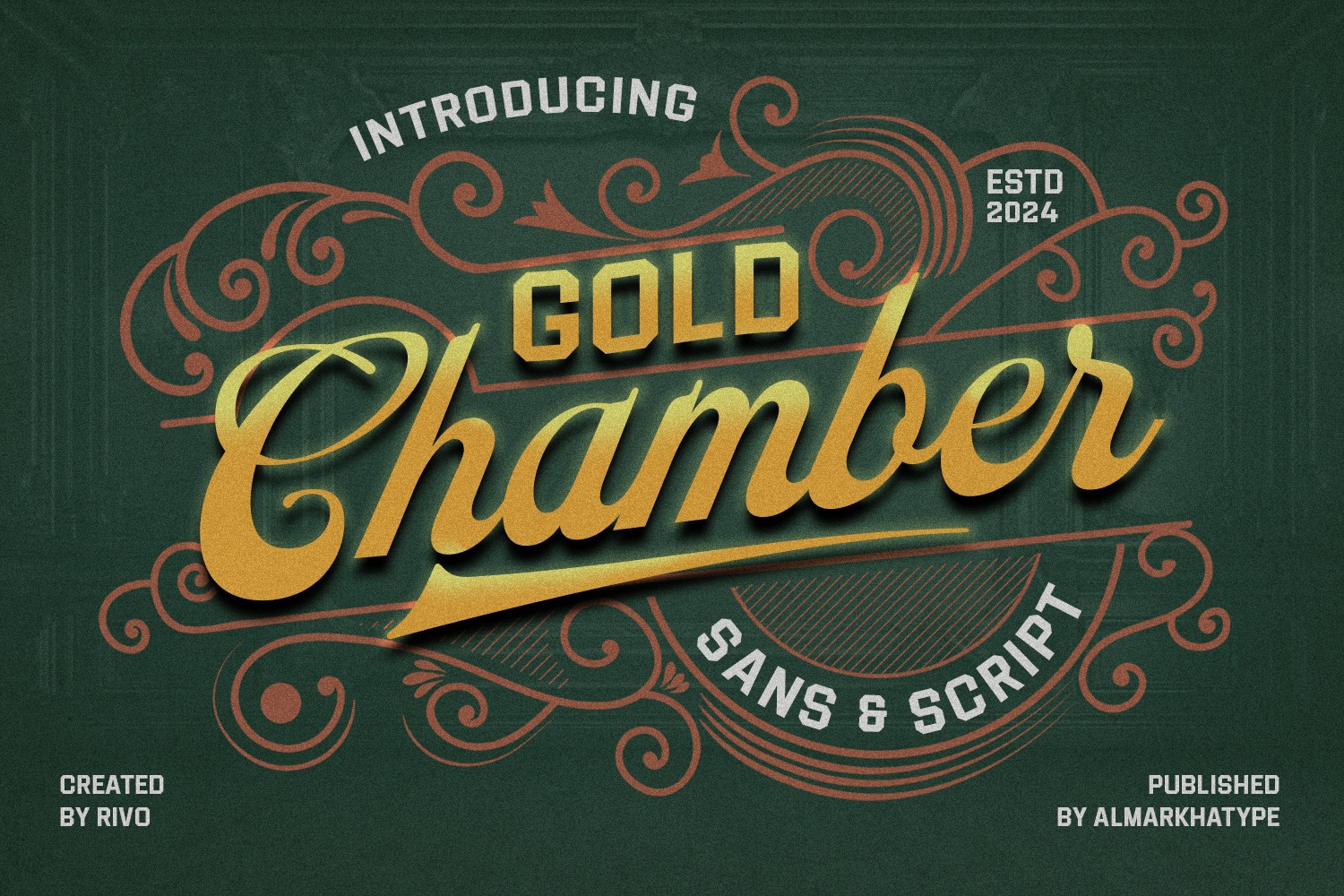
Gold Chamber Font Duo
Gold Chamber Font Duo is a professionally designed typeface that delivers clarity, structure, and consistent performance across various design applications. Gold Chamber, a dynamic and robust set of fonts inspired by vintage labels of the past. This collection evokes the mechanical charm and industrious spirit of yesteryear, offering versatility and strength for your design needs.